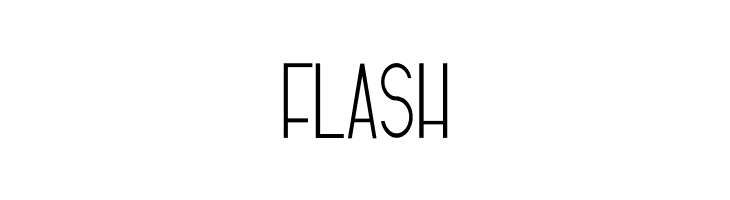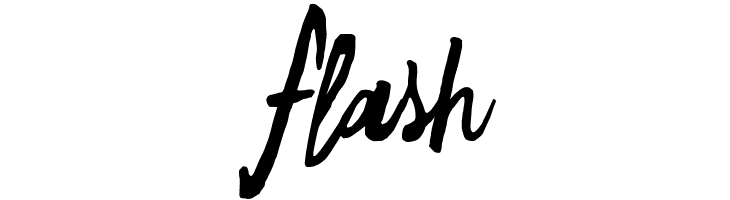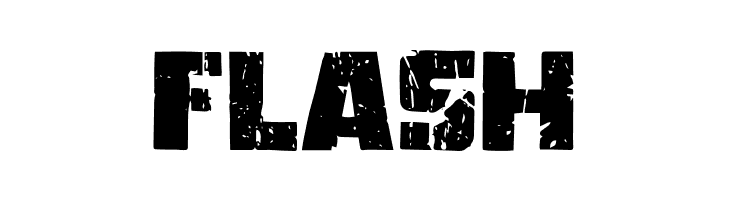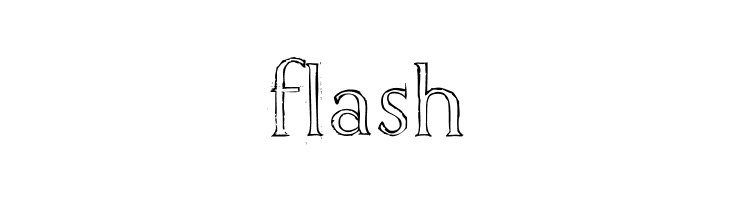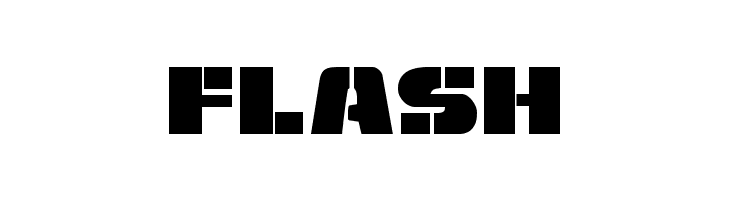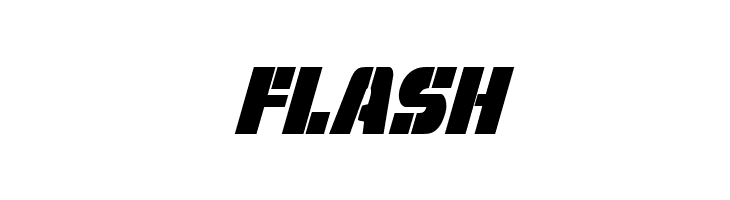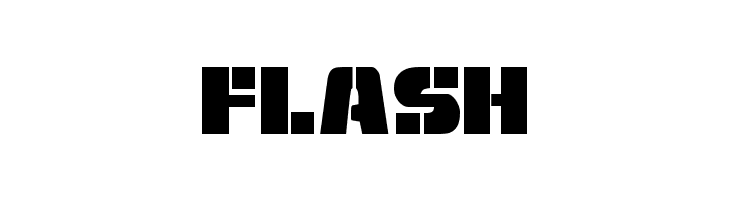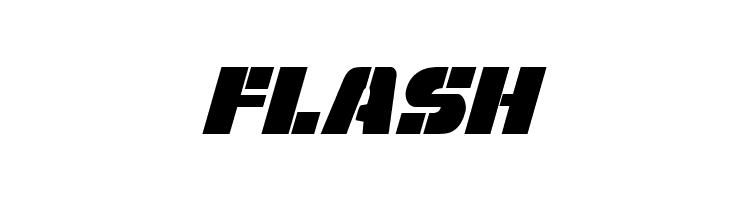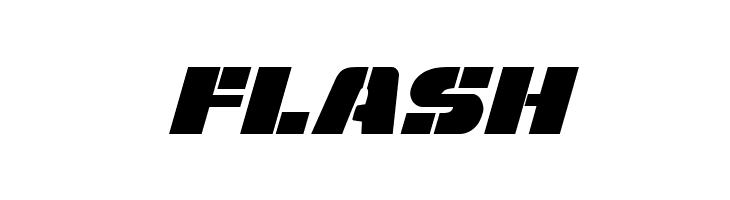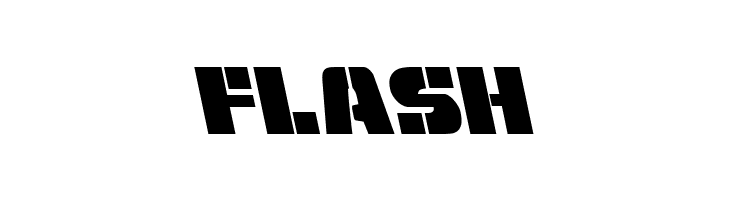
An elegant and flowing script font with ornate swashes and high contrast.
A bold, decorative font with a shadow effect and intricate details.
A playful, hand-drawn font with whimsical, uneven strokes.
A playful, bold font with rounded edges and a hand-drawn feel.
A bold, cursive script font with flowing, elegant strokes.
A bold, dynamic script font with flowing, interconnected letterforms and high contrast.
A modern, geometric font with rounded edges and consistent stroke widths.
A bold, edgy font with sharp, angular lines and a graffiti-like aesthetic.
A bold, playful script font with a lively, handwritten style.
A bold, 3D italic font with outlined characters and a dynamic style.
A bold, 3D outlined font with decorative star cutouts.
A bold, condensed font with geometric shapes and decorative star motifs.
A bold, condensed, and italic font with a dynamic and modern style.
A bold, geometric font with a strong, assertive presence and expanded width.
A bold, expanded, and italicized font with a dynamic and modern style.
A bold, italicized font with dynamic, action-themed aesthetics.
A bold, stencil-style font with angular, blocky characters and decorative cutouts.
A bold, geometric font with a stencil-like design and star motifs.
A bold, expressive font with a hand-drawn, rebellious style.
A bold, brush-style font with dynamic and expressive strokes.
A playful, casual handwritten font with irregular strokes and an organic flow.
A clean, modern font with smooth curves and balanced structure.
A casual, handwritten font with a playful and approachable style.
A bold, freehand block letter font with a casual, artistic style.
A playful, hand-drawn font with bold, expressive strokes and a casual style.
A hand-drawn, artistic font with an organic and informal style.
A dynamic and expressive script font with fluid, interconnected strokes.